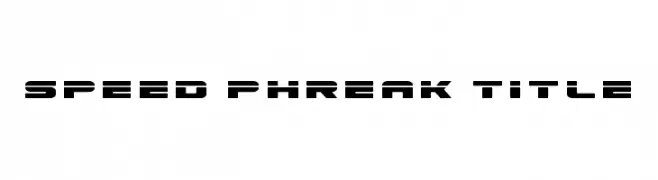
A bold, italic outline font with a dynamic, superhero-inspired style.
A bold, condensed italic font with a dynamic and modern style.
A bold, expanded, and italicized font with a dynamic and futuristic style.
A bold, futuristic font with geometric and angular design, ideal for headlines.
A bold, expanded, and italicized font with a modern, dynamic style.
A bold, 3D outlined font with a modern, geometric style.
A futuristic, bold font with a laser-cut, three-dimensional appearance.
A futuristic, angular font with a bold and dynamic style.
A bold, 3D geometric font with a futuristic and dynamic style.
A bold, futuristic font with a gradient effect created by horizontal lines.
A bold, geometric font with a modern and futuristic style.
A bold, outlined font with sharp, angular edges and a dynamic style.
A bold, italicized font with sharp, angular edges and a dynamic, futuristic style.
A bold, 3D outlined font with sharp, angular edges and a modern, futuristic style.
A bold, 3D italic font with a rugged, textured appearance and playful style.
A bold, jagged, and distressed font ideal for horror-themed designs.
A bold, geometric font with an industrial and futuristic style.
A bold, futuristic font with angular, geometric shapes and a modern, tech-inspired style.
A bold, geometric font with sharp angles and a futuristic style.
A bold, geometric font with a futuristic and digital aesthetic.
A bold, 3D hand-drawn font with a playful, geometric style.
A futuristic, angular font with a dynamic, italicized style.
A geometric, futuristic font with a digital aesthetic and uniform stroke width.
A creepy, dripping font perfect for horror themes.
A bold, angular font with a runic, fantasy-inspired design.
A calligraphic font with sharp, angular strokes and elegant curves, evoking a fantasy or ancient script style.
A bold, geometric font with a modern, futuristic style.
A bold, slanted font with a futuristic and dynamic style.
A bold, geometric font with a futuristic and industrial style.
A decorative, abstract font with geometric and angular designs.
A bold, geometric font with sharp angles and a futuristic style.